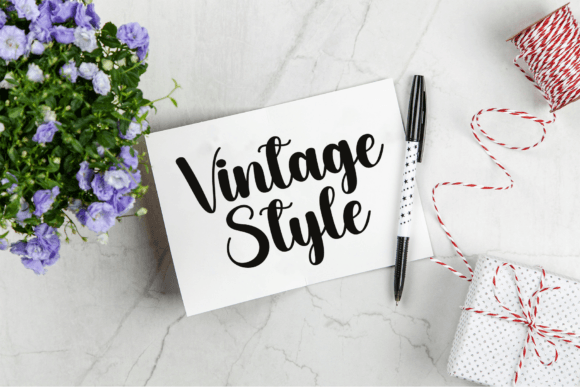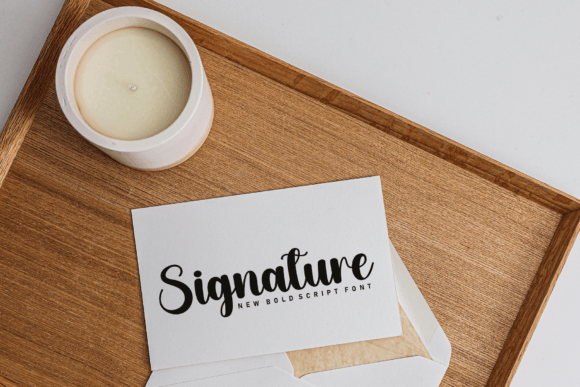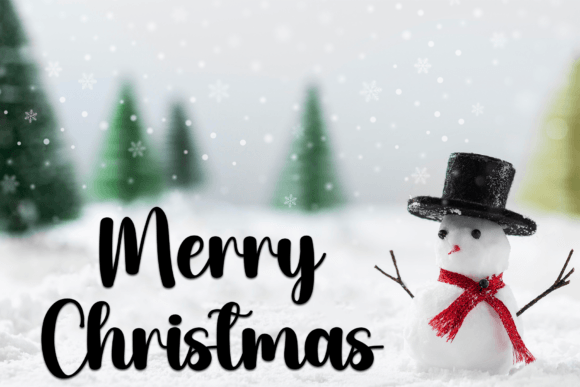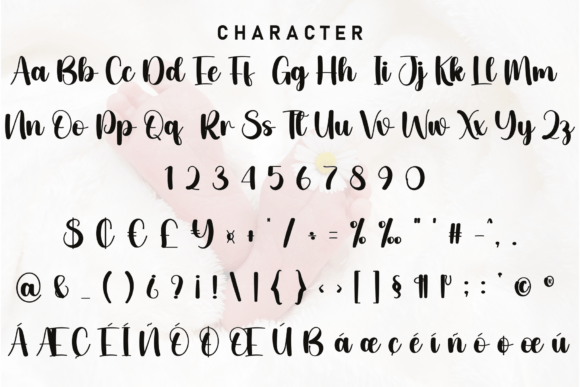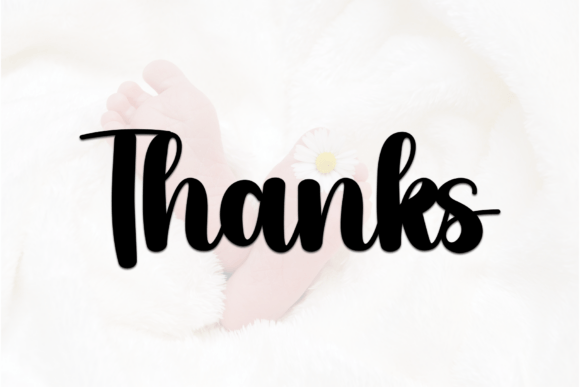
Introducing Blanket Font: The Ultimate Choice for Bold and Modern Designs
Are you tired of using the same old fonts for your designs? Look no further than Blanket Font, a bold and modern script font that’s taking the design world by storm. With its clean lines and strong presence, Blanket is perfect for making a statement in headlines, posters, and logos. In this article, we’ll dive into the unique features of Blanket Font and explore how it can elevate your designs to the next level.
What is Blanket Font?
Blanket Font is a modern script font designed to make a statement. Its unique design gives a fresh, stylish look that’s perfect for designers and crafters looking to add a touch of sophistication to their work. With its bold and clean lines, Blanket Font is ideal for creating eye-catching headlines, posters, and logos that demand attention.
Key Features of Blanket Font
- Bold and Modern Design: Blanket Font boasts a bold and modern design that’s perfect for making a statement in your designs.
- Clean Lines: The font features clean lines that give it a strong and sleek presence.
- Unique Style: Blanket Font has a unique style that’s both fresh and stylish, making it perfect for designers and crafters looking to add a touch of sophistication to their work.
- High Versatility: The font is highly versatile and can be used for a wide range of design projects, from headlines and posters to logos and branding.
Why Choose Blanket Font?
So why choose Blanket Font over other fonts on the market? Here are just a few reasons why Blanket Font stands out from the crowd:
- Make a Statement: With its bold and modern design, Blanket Font is perfect for making a statement in your designs.
- Stand Out from the Crowd: The font’s unique style ensures that your designs will stand out from the crowd and grab attention.
- Easy to Read: Despite its bold design, Blanket Font is easy to read, making it perfect for use in headlines, posters, and other designs where readability is key.
- Customizable: Blanket Font is highly customizable, allowing you to adjust the font to suit your design needs.
How to Use Blanket Font in Your Designs
Blanket Font is highly versatile and can be used in a wide range of design projects. Here are just a few ideas to get you started:
- Headlines and Posters: Use Blanket Font to create eye-catching headlines and posters that demand attention.
- Logos and Branding: The font is perfect for creating bold and modern logos and branding that make a statement.
- Social Media Graphics: Use Blanket Font to create eye-catching social media graphics that stand out from the crowd.
- Packaging Design: The font is also perfect for use in packaging design, where a bold and modern look can help your product stand out on store shelves.
Tips and Tricks for Getting the Most out of Blanket Font
Here are just a few tips and tricks for getting the most out of Blanket Font:
- Experiment with Different Sizes: Don’t be afraid to experiment with different font sizes to find the perfect balance for your design.
- Play with Color: Blanket Font looks great in a wide range of colors, so don’t be afraid to experiment and find the perfect hue for your design.
- Combine with Other Fonts: Blanket Font pairs well with a wide range of other fonts, so don’t be afraid to combine it with other fonts to create a unique look.
In conclusion, Blanket Font is a bold and modern script font that’s perfect for designers and crafters looking to make a statement in their designs. With its clean lines, unique style, and high versatility, Blanket Font is the ultimate choice for creating eye-catching headlines, posters, logos, and more. Whether you’re a seasoned designer or just starting out, Blanket Font is sure to become a go-to font in your design arsenal.